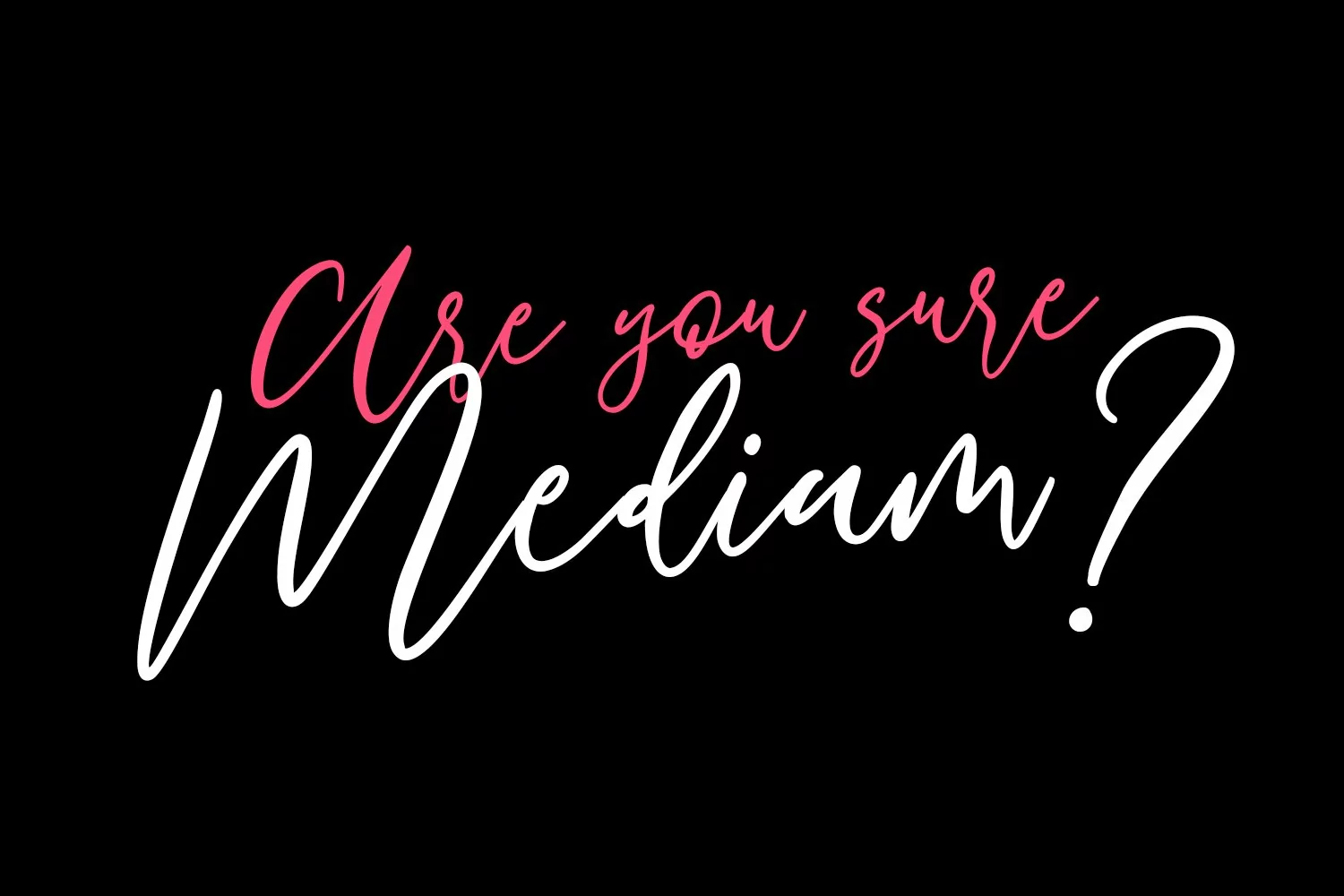
Soulsteps is a casual signature font. With high contrast stroke, slanted and fun character with a bit of ligatures. To give you an extra creative work. Soulsteps font support multilingual more than 100+ language. This font is good for logo design, Social media, Movie Titles, Books Titles, a short text even a long text letter and good for your secondary text font with sans or serif. Make a stunning work with Soulsteps font.